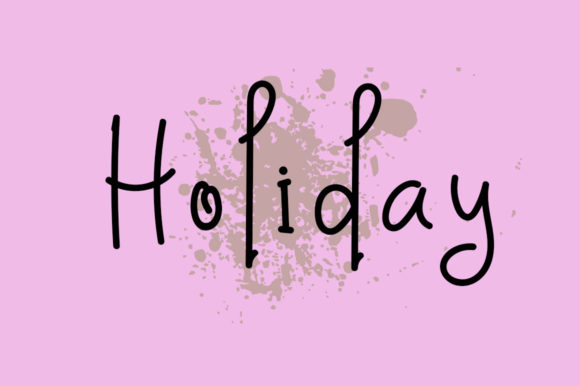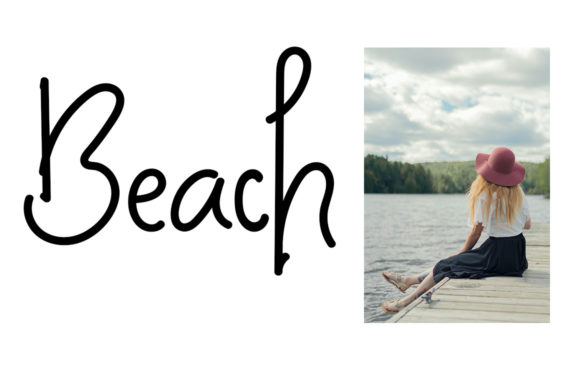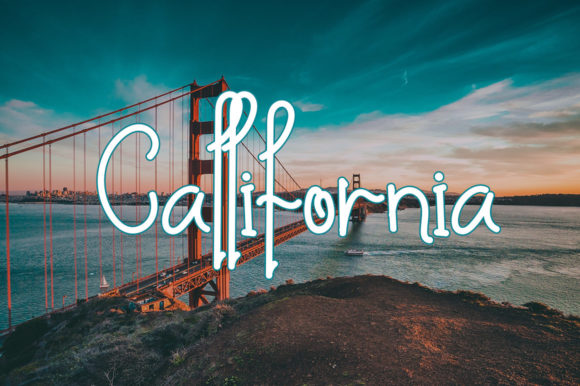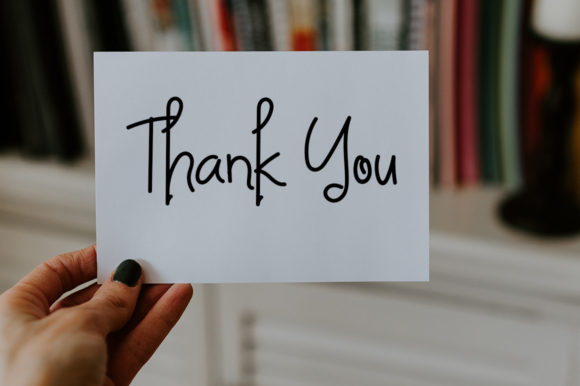
Girls Hairy Font: A Beautiful and Sweet Addition to Your Design Projects
Are you a designer or crafter looking for a unique and elegant font to add a touch of joy to your designs? Look no further than Girls Hairy Font! This beautiful and sweet font is perfect for a wide range of projects, both formal and informal. In this article, we’ll take a closer look at Girls Hairy Font, its features, and how you can use it to elevate your designs.
What is Girls Hairy Font?
Girls Hairy Font is a fresh, clean, and elegant font that is sure to capture the hearts of designers and crafters alike. Its unique and playful design makes it perfect for adding a touch of whimsy and fun to your designs. Whether you’re working on a formal or informal project, Girls Hairy Font is sure to make it stand out.
Key Features of Girls Hairy Font
- Fresh and Clean Design: Girls Hairy Font boasts a fresh and clean design that is perfect for creating modern and sophisticated designs.
- Elegant and Playful: The font’s elegant and playful design makes it perfect for adding a touch of joy and whimsy to your designs.
- Versatile: Girls Hairy Font is versatile and can be used for a wide range of projects, from formal to informal.
- Easy to Read: The font is easy to read, making it perfect for body text and headlines.
How to Use Girls Hairy Font in Your Designs
Girls Hairy Font can be used in a variety of design projects, including:
- Digital Art: Add a touch of elegance and playfulness to your digital art with Girls Hairy Font.
- Crafting: Use Girls Hairy Font to create beautiful and unique craft projects, such as handmade cards and scrapbooking.
- Graphic Design: Use Girls Hairy Font in your graphic design projects, such as brochures, flyers, and posters.
- Web Design: Add a touch of whimsy and fun to your website with Girls Hairy Font.
Tips for Using Girls Hairy Font
- Pair it with Other Fonts: Pair Girls Hairy Font with other fonts to create a unique and visually appealing design.
- Experiment with Colors: Experiment with different colors to find the perfect combination that complements Girls Hairy Font.
- Use it for Headlines and Body Text: Use Girls Hairy Font for both headlines and body text to create a cohesive and visually appealing design.
In conclusion, Girls Hairy Font is a beautiful and sweet font that is perfect for designers and crafters looking to add a touch of joy and whimsy to their designs. Its fresh, clean, and elegant design makes it versatile and easy to use in a wide range of projects. With its ease of use and flexibility, Girls Hairy Font is sure to become a favorite among designers and crafters.